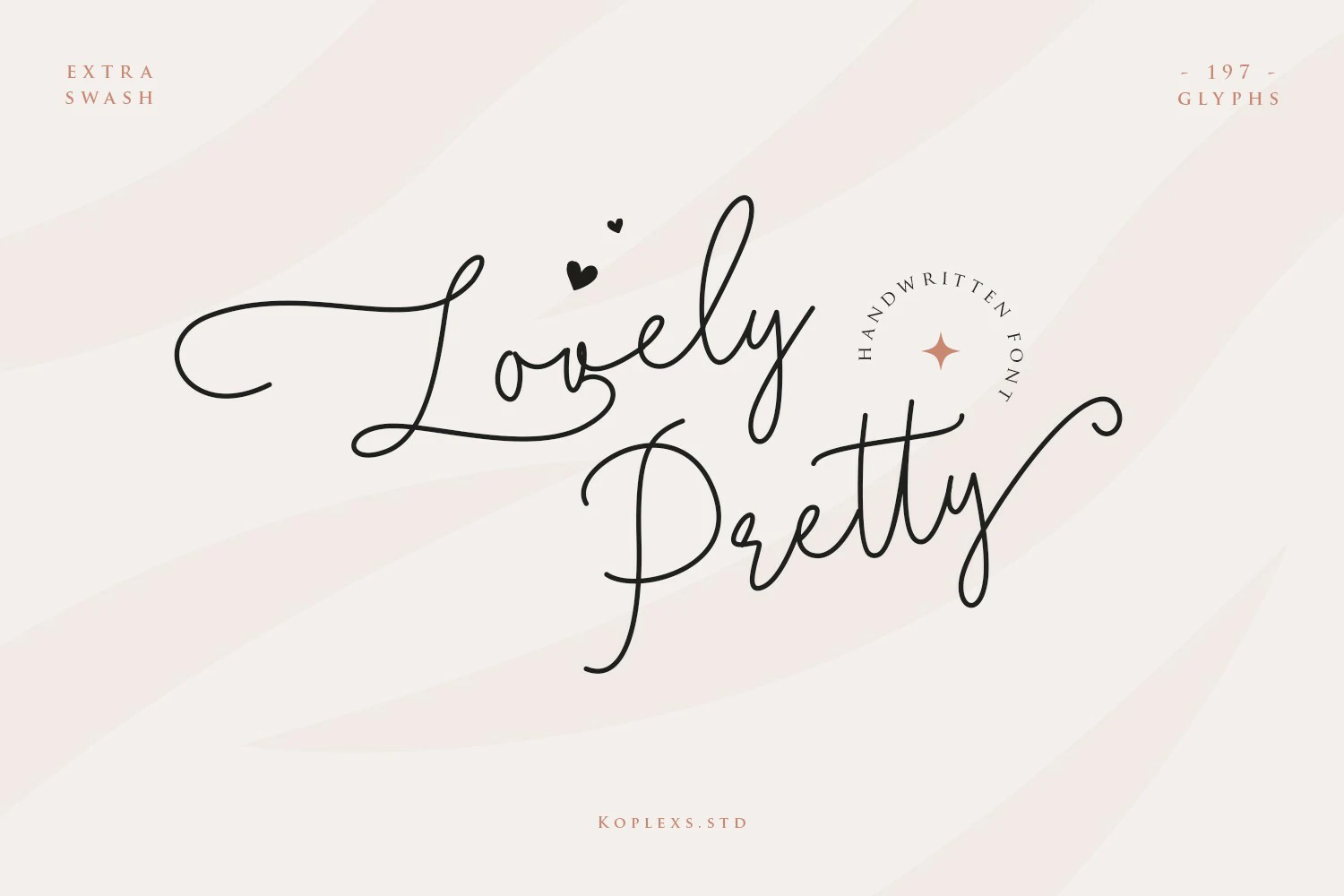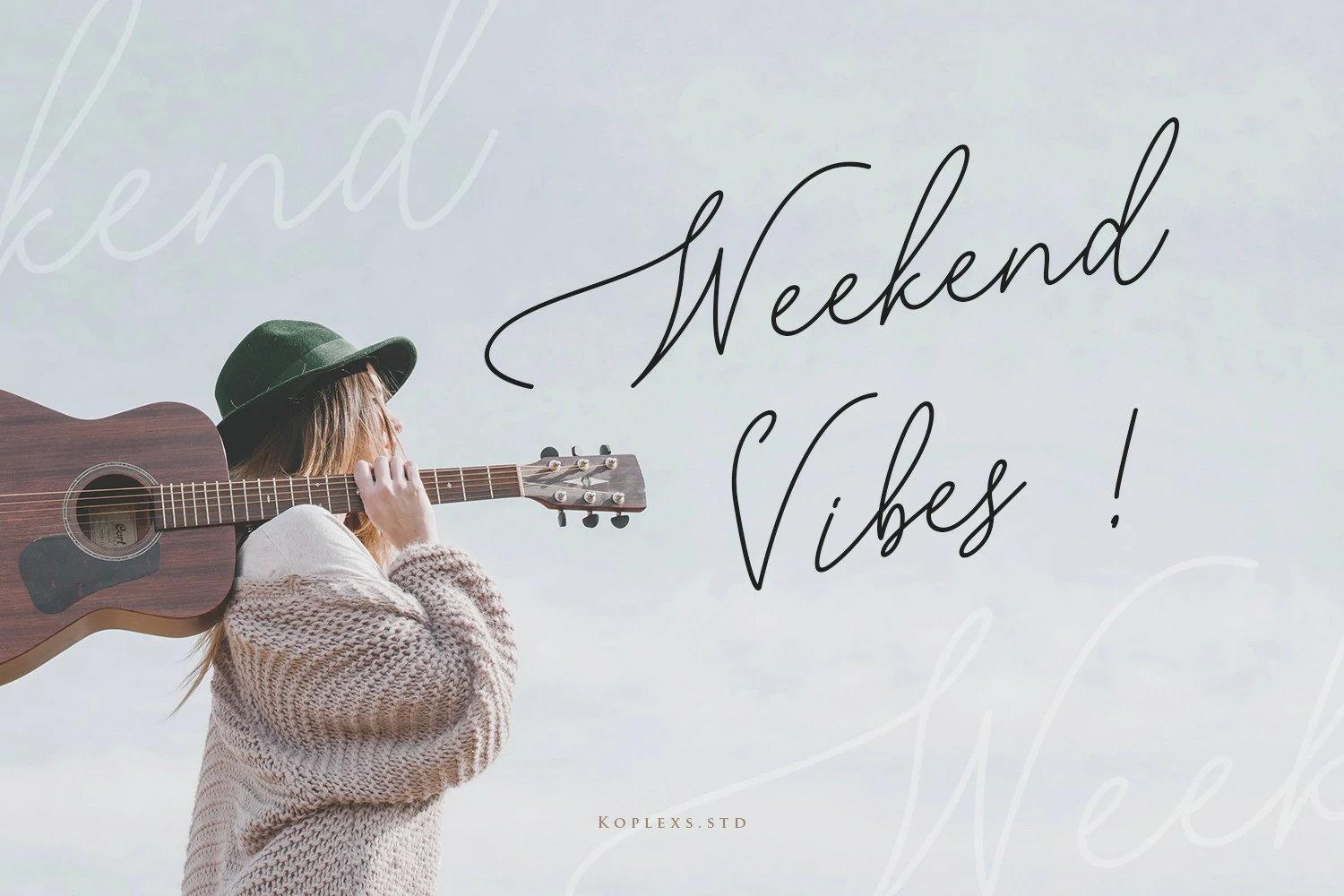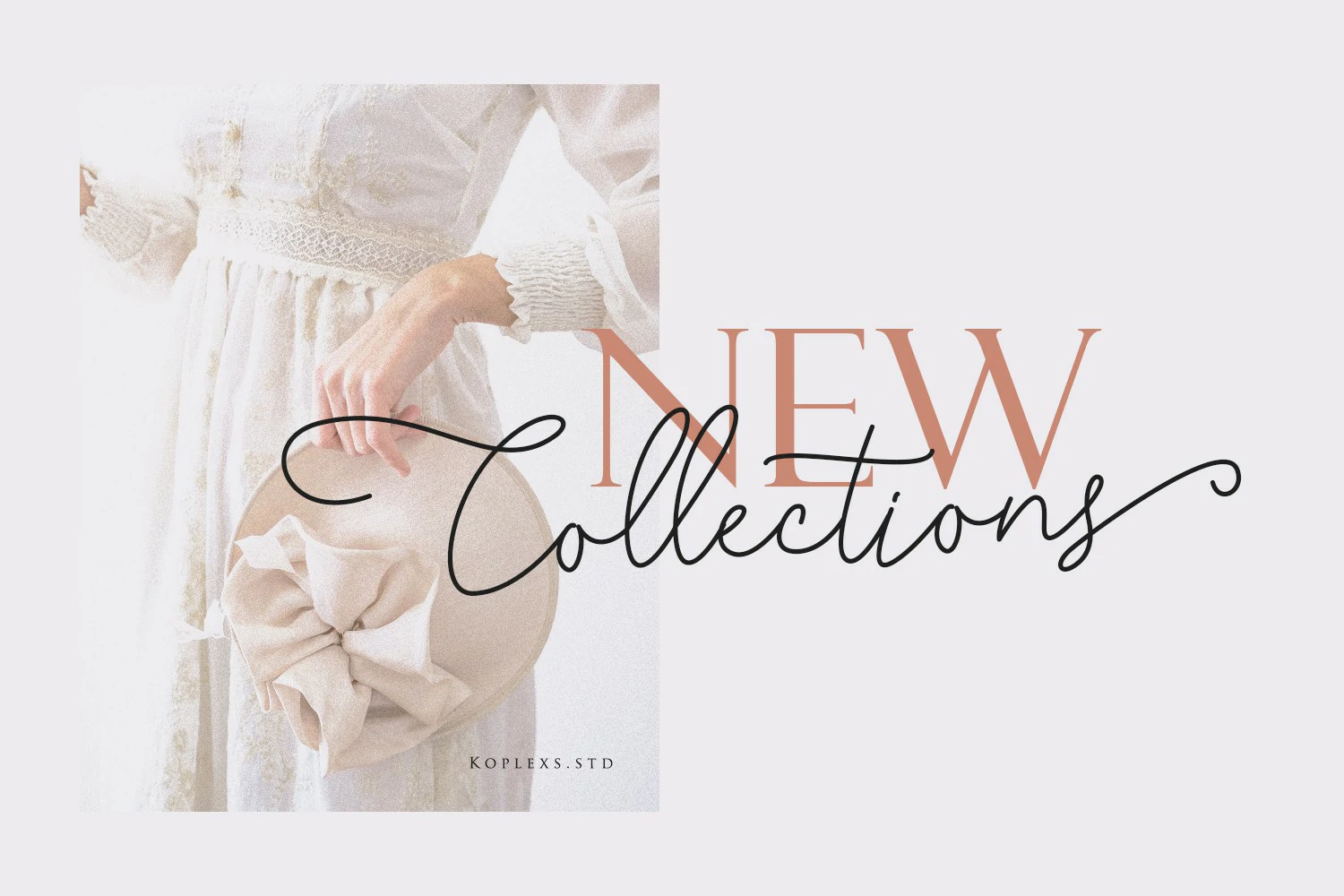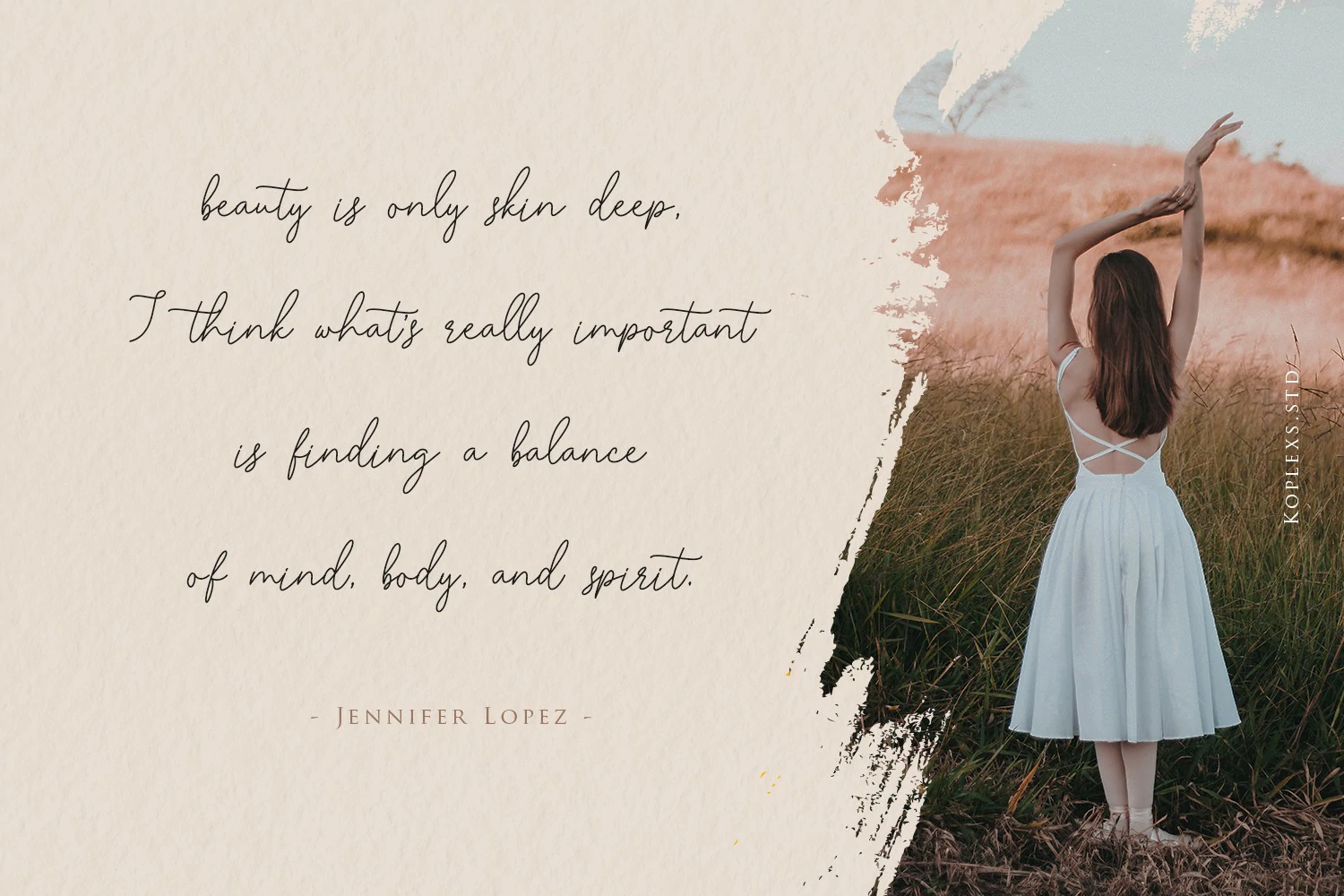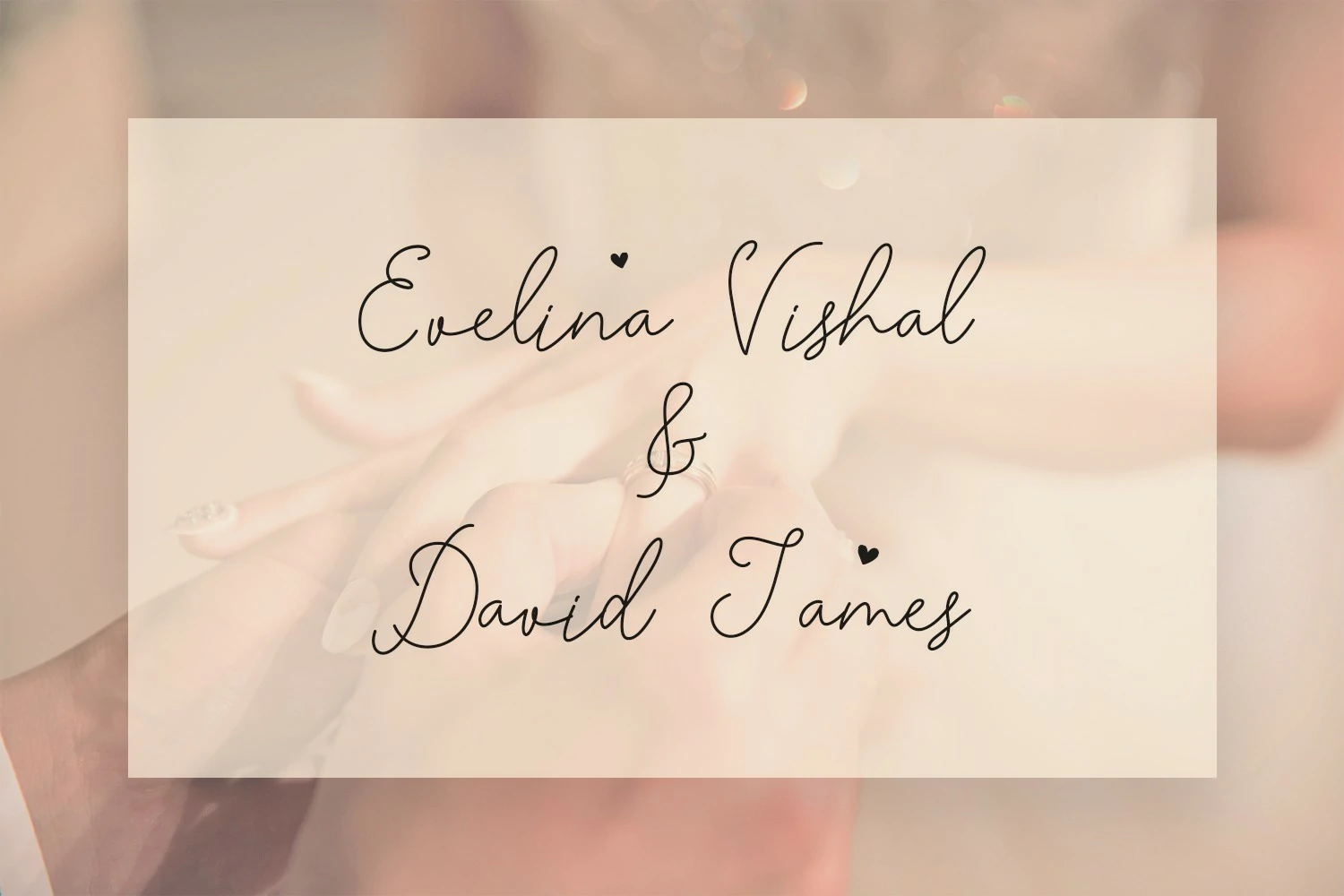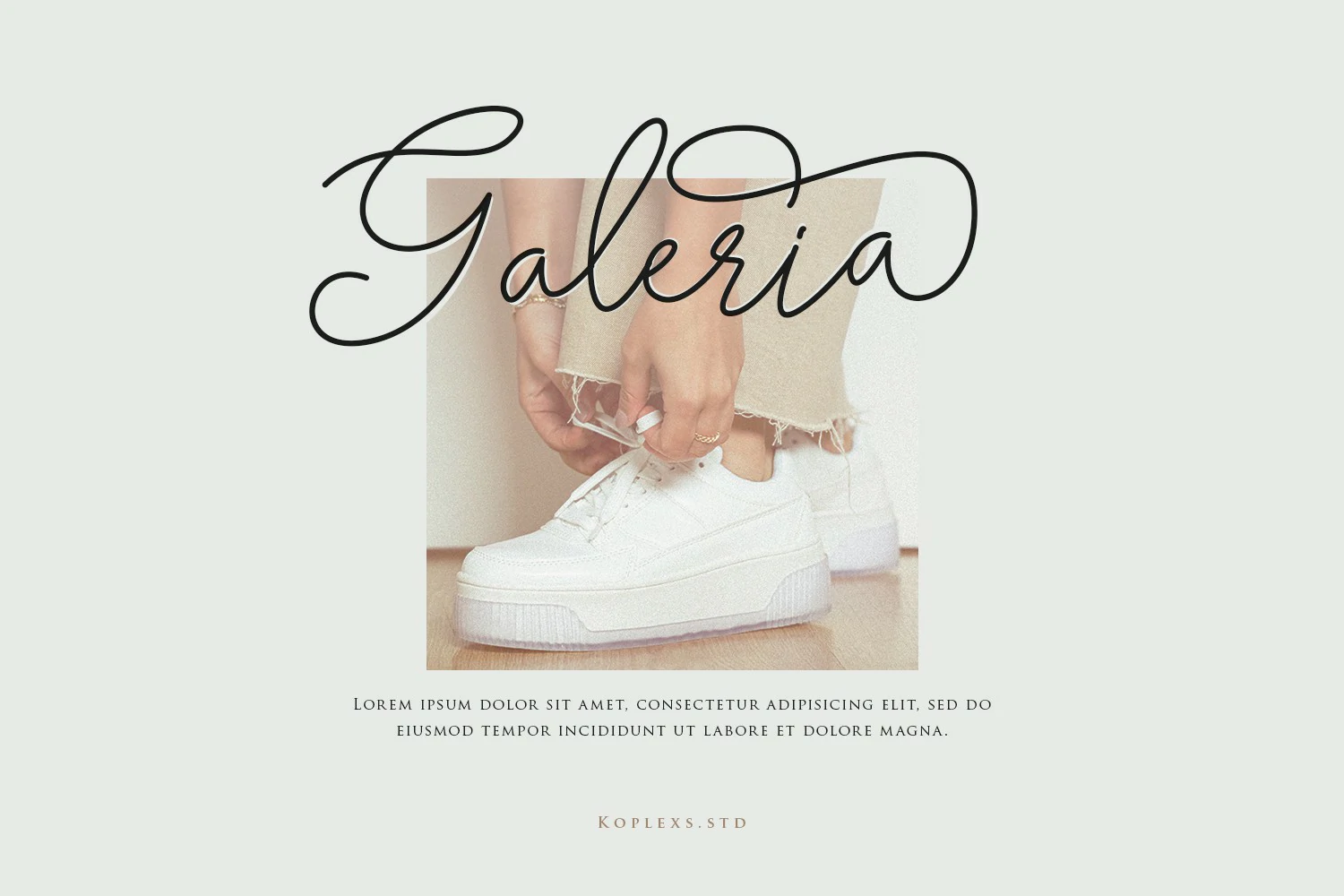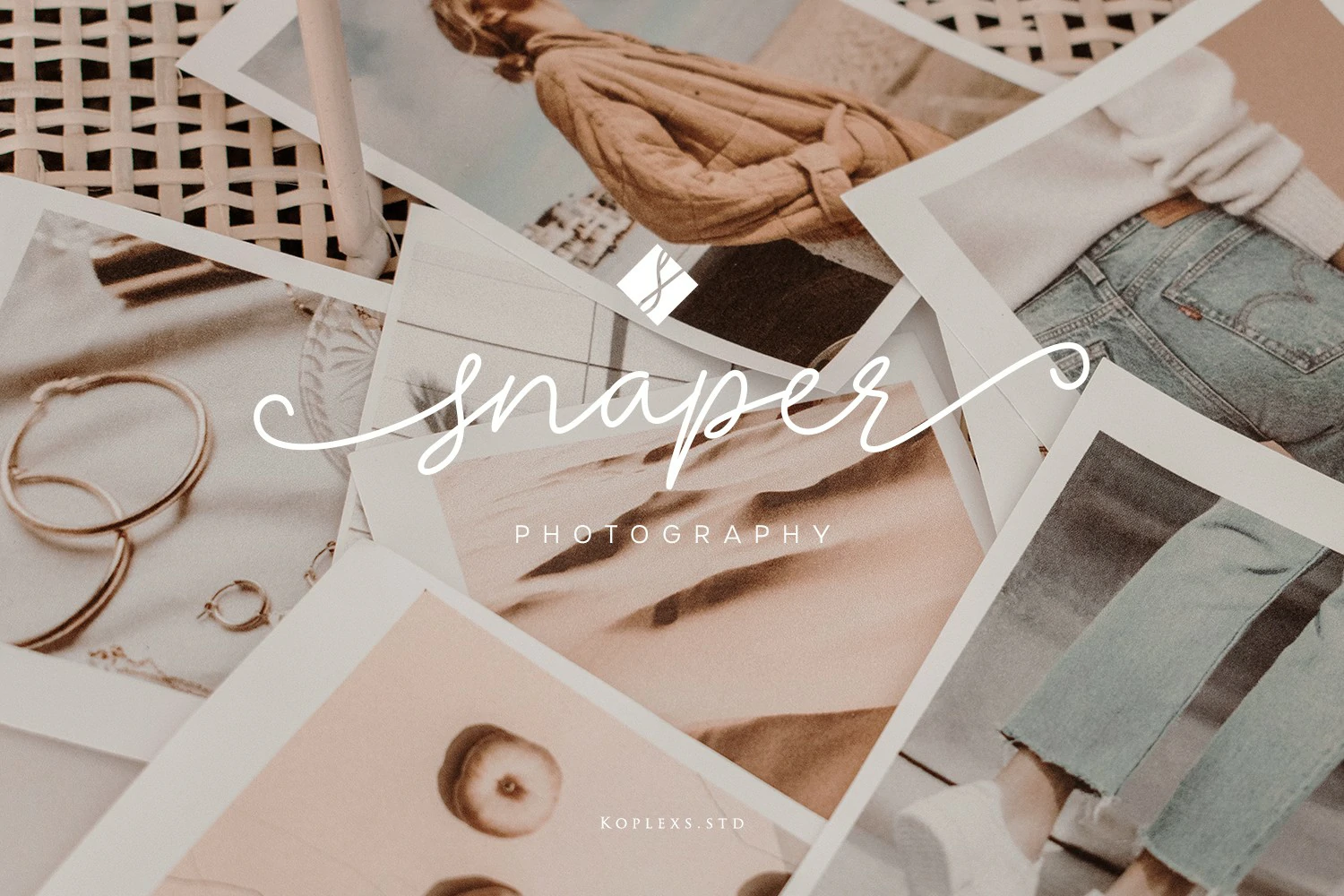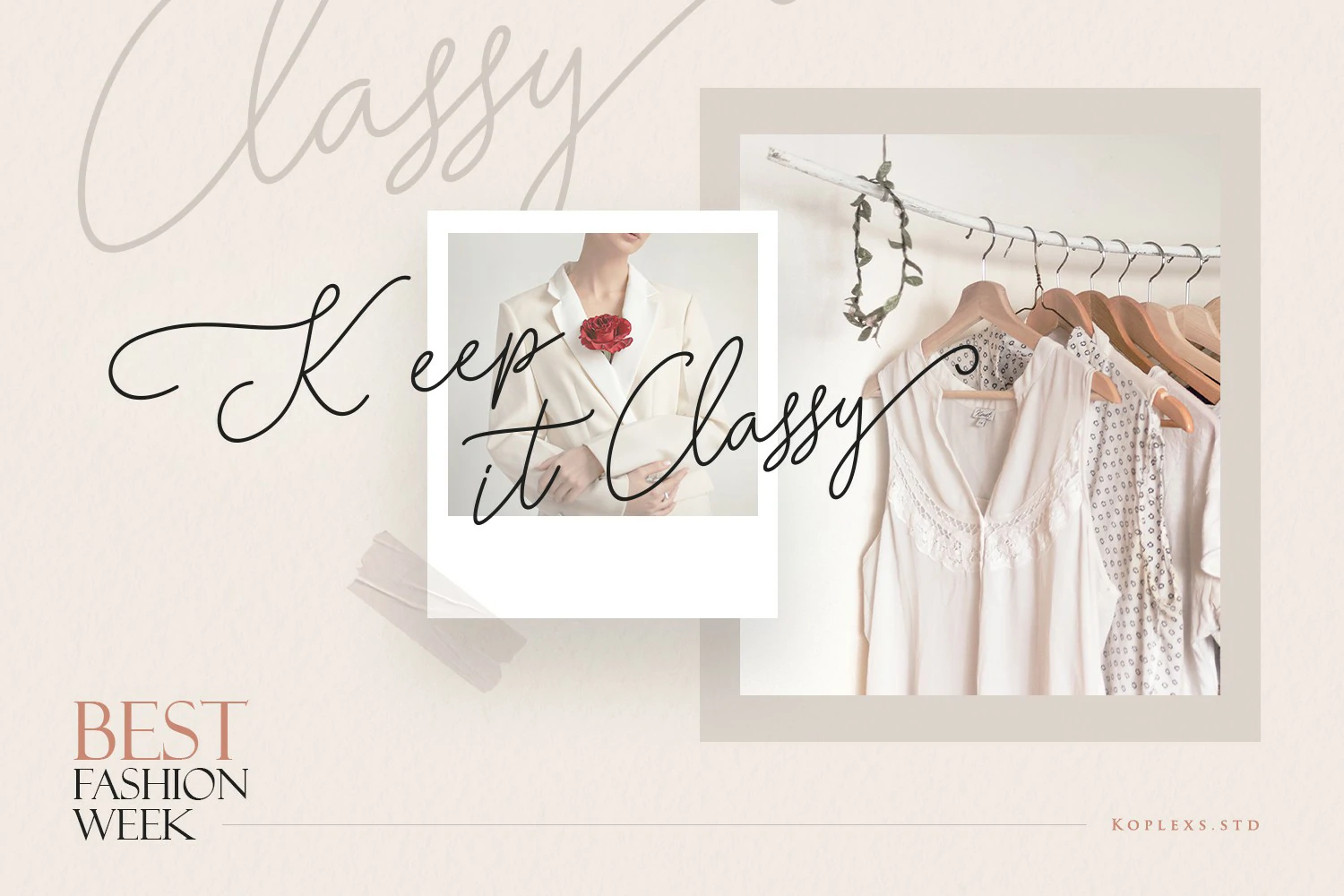
Lovely Pretty Font
Lovely Pretty Font – A sweet & stylish script font perfect for logos, quotes, and wedding designs. Comes in TTF/OTF/WOFF with alternates, ligatures, and swashes. Handwritten charm, zero effort!
Lovely Pretty Font: The Sweetest Script Font for Your Designs!
Hey there, fellow creatives! 🌸✨ Introducing Lovely Pretty Font , the perfect blend of elegance and whimsy to make your designs swoon-worthy! Whether you’re crafting wedding invitations, creating stunning logos, or designing eye-catching social media graphics, this font is here to steal the show with its charming personality.
What Makes Lovely Pretty Font So Special?
• Signature Style : This font has a hand-drawn charm that feels like a personal touch. It’s as if someone wrote it just for you—elegant, flowing, and full of character.
• Calligraphy Vibes : With its graceful strokes and fluid lines, Lovely Pretty Font brings a classic calligraphic feel to modern designs. Perfect for those who love timeless beauty!
• Lettering Perfection : Each letter is meticulously crafted to look like beautiful, handwritten art. It’s not just a font—it’s a work of art!
Features That Will Make You Fall in Love
• Alternate Characters : Got a hankering for something extra? Lovely Pretty comes packed with alternate characters to keep your designs fresh and unique. Mix and match to create endless possibilities!
• Ligatures : These little connectors between letters add an extra layer of sophistication. They make your text flow seamlessly, giving it a polished, professional look.
• Swashes & Flourishes : Add a touch of flair with swashes and flourishes that elevate your designs from ordinary to extraordinary. Perfect for headlines, signatures, or any place where you want to make a statement!
Compatibility Galore
• 197+ Glyphs : With over 197 glyphs, including numbers, punctuation, and special characters, you’ve got everything you need to bring your ideas to life.
Lovely Pretty Font Perfect for :
• Wedding invitations
• Logos and branding
• Social media graphics
• Handwritten-style quotes
• Personalized stationery
• Book covers and titles
Why Choose Lovely Pretty Font ?
Because life is too short for boring fonts! This script font is designed to make your projects pop with personality and charm. Whether you’re a designer, artist, or DIY enthusiast, Lovely Pretty will become your go-to font for adding a touch of sweetness to every project.
Get Ready to Fall in Love